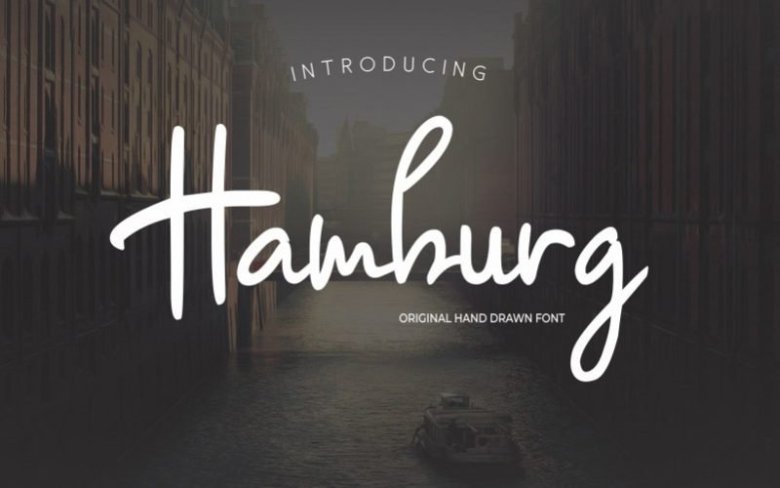
Hamburg Signature Font
Hamburg is a stylish & modern hand drawn script typeface. This font
will looks awesome and amazing in many way to your latest project.
Hamburg is perfect for many different
project such as logos & branding, invitation, stationery, wedding
designs, social media posts, advertisements, product packaging, product
designs, label, photography, watermark, special events or anything.
– Support multilanguage glyphs